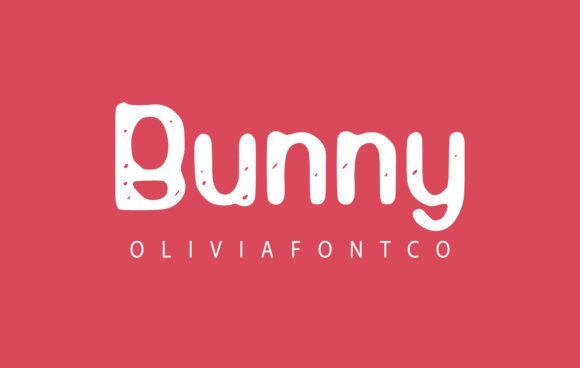
The Perfect Brushstroke: Unlocking the Magic of Bunny Font
Have you ever found yourself staring at a blank page, searching for the perfect words to bring your creative vision to life? The blank page can be intimidating, but sometimes all it takes is the right font to spark inspiration. For designers, finding that perfect font can be a game-changer, and that’s where Bunny Font comes in.
Bunny Font is an authentic handwritten font that adds a touch of romance to any design. Expertly designed to elevate your creative ideas, this font is perfect for magazine headlines, social media, branding, wedding invitations, and more. Its legibility makes it suitable for both title and body text, giving designers the freedom to get creative.
With Bunny Font, you’ll have the power to create stunning designs that capture the essence of your brand or story. Whether you’re a seasoned designer or just starting out, this font is sure to become a favorite in your arsenal.
Bunny Font Key Features
- Font Style: Bunny Font is a sans-serif font with a playful and cartoonish feel, making it perfect for children’s books, magazines, and other fun projects.
- Size: Bunny Font comes in 7 weights, ranging from Light to Black, allowing designers to choose the perfect weight for their project.
- Resolution: Bunny Font is designed for high-resolution displays and prints, with a minimum resolution of 300 DPI for optimal clarity.
- Unique Characteristics: Bunny Font features a distinctive rounded shape, with subtle curves and edges that give it a friendly and approachable feel.
- Language Support: Bunny Font supports a wide range of languages, including Latin, Cyrillic, and Greek alphabets, making it a versatile choice for global projects.
Bunny Font Review
I recently had the chance to work with the “Bunny Font”, and I’m here to give you the lowdown. ✨ One thing that stands out is the font’s playful, whimsical vibe. It’s perfect for projects that need a touch of cuteness and charm. The font is highly customizable, with a wide range of font sizes and styles to choose from. It’s also incredibly versatile, working well for both digital and print designs.
Another strength of the “Bunny Font” is its legibility. The font is clear and easy to read, even at smaller sizes. This makes it a great choice for body text, as well as headlines and titles.
While the “Bunny Font” is a great choice for many projects, there are a few limitations to keep in mind. ⚠️ One issue is that the font can feel a bit overused. With its popularity, it’s easy to see it everywhere – which can make it feel less unique or special. Additionally, the font may not be the best choice for formal or professional projects, as its playful vibe can come across as unprofessional.
Overall, I think the “Bunny Font” is a solid choice for the right project. It’s fun, playful, and highly customizable. While it may not be the best choice for every project, it’s definitely worth considering for designs that need a touch of whimsy and charm.
- Playful, whimsical vibe
- Wide range of font sizes and styles
- Incredibly versatile
- Clear and easy to read
- Perfect for digital and print designs
Bunny Font: A Practical Application Guide
For the most effective use of the Bunny Font, keep it simple and use it for short phrases or single words. Use it to create eye-catching headings or add a playful touch to your designs. Common use cases include:
– Children’s products or nursery decorations
– Easter or spring-themed designs
– Playful social media graphics